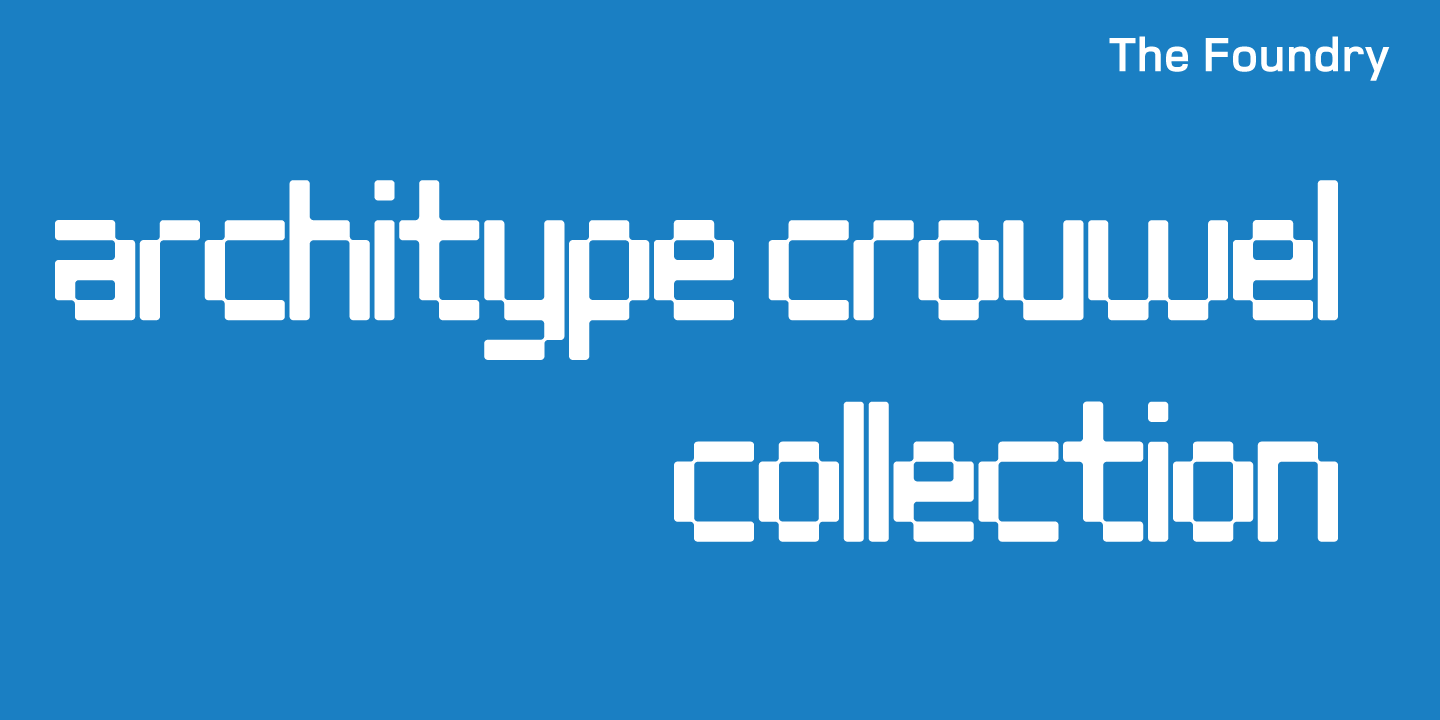
Architype Fodor Font is perfect for architectural firm branding, construction company logos, urban planning presentations, engineering documentation, blueprint design projects, real estate development materials, modern building signage, and structural design portfolios. This sophisticated typeface excels in interior design studios, landscape architecture firms, civil engineering reports, and contemporary construction industry communications.
What makes Architype Fodor Font exciting is its structural precision and architectural sophistication that captures the mathematical beauty and engineering excellence of modern building design. The font features geometric letterforms, blueprint-inspired spacing, and technical character that evokes the clarity of architectural drawings and the precision of structural calculations. Its professional authority and design expertise make every word feel architecturally sound.
Architype Fodor Font family includes various architectural styles: Regular, Bold, Light, Technical, Condensed, and Blueprint variations. Each style maintains the font's signature structural character while providing designers with comprehensive options for creating professional architecture brand identities and technical typography that resonates with construction professionals and design-conscious audiences.
Architecture professionals choose Architype Fodor Font Free Download for projects requiring technical credibility and design sophistication. The font's versatility makes it suitable for both digital architectural presentations and traditional construction documentation, ensuring precise results across project proposals, technical drawings, and professional architectural communications.